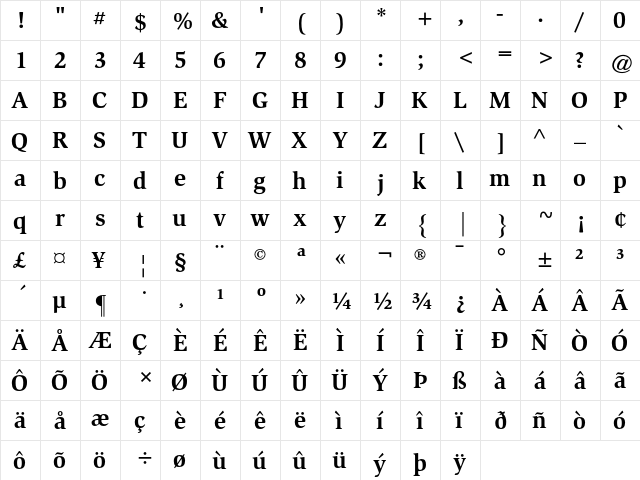
ATSlimbach Regular
Design Context for ATSlimbach Typeface
ATSlimbach offers clean, dependable letterforms without strong stylistic allegiance, making it a practical choice for designers who need flexibility.